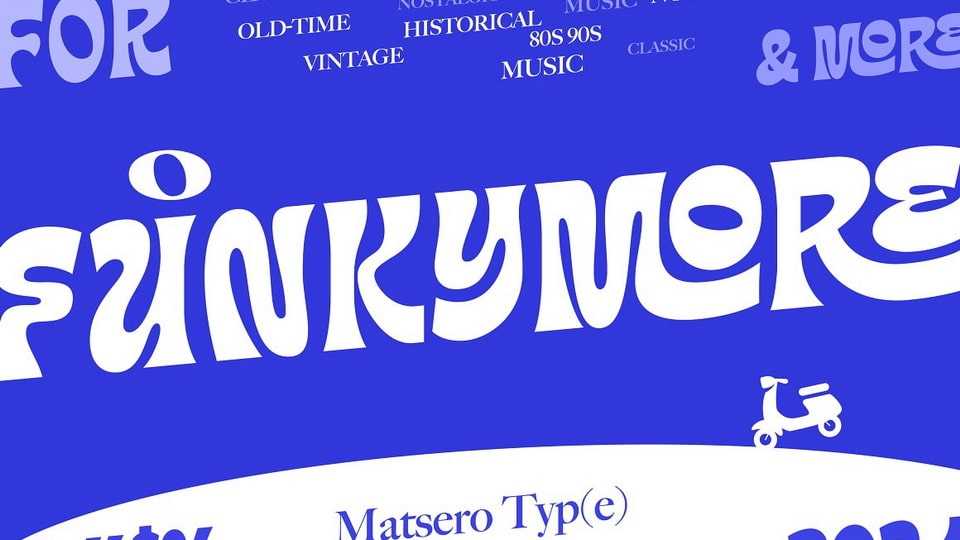
Download Funkymore font, a truly transformative display typeface ingeniously fusing echoes of the past with the contemporary vibrancy. This vintage-inspired yet remarkably modern font oozes elegance in every curve, radiating a timeless sophistication.
Designer: Matsero